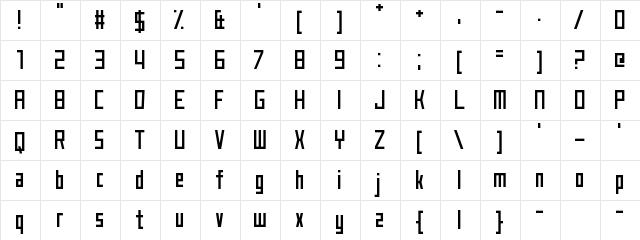
Just My Type Regular
| Designer | NAL |
Design Context for Just My Type Typeface
Just My Type offers clean, dependable letterforms without strong stylistic allegiance, making it a practical choice for designers who need flexibility.
Pro Tip: Use Just My Type in both headline and body roles to test its range before committing to a single application.